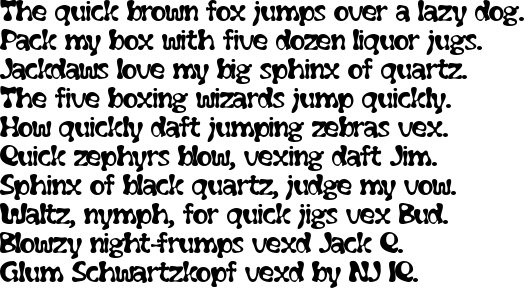
✓ This version includes upper and lowercase letters, punctuation, and many international characters. I also included some UA Type dingbats (just to amuse myself, and so you don't get those annoying boxes when you type something that isn't in the font). Remember the "Absent-Minded Professor" from Disney? He accidently created this rubbery substance that bounced higher and higher. He used it to make things fly. Well, I accidently dicovered the technique for making this font. And it has that rubbery - strechy look to it.